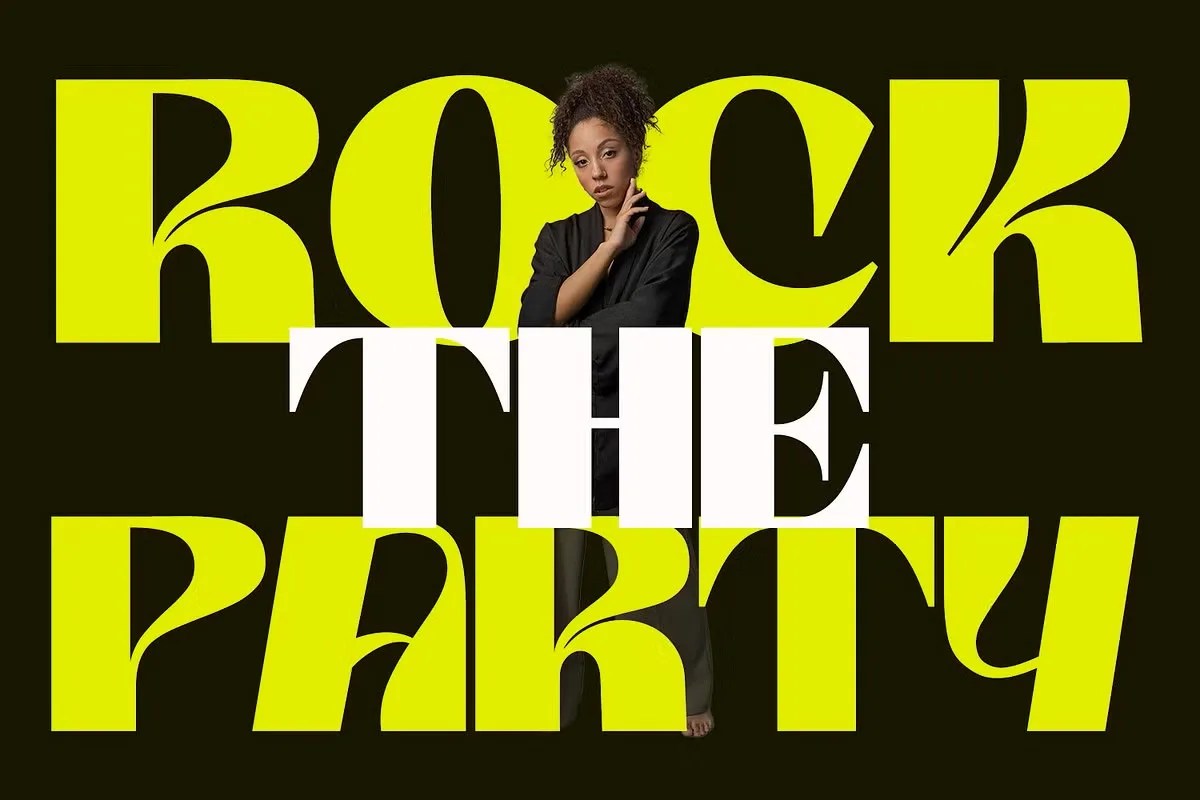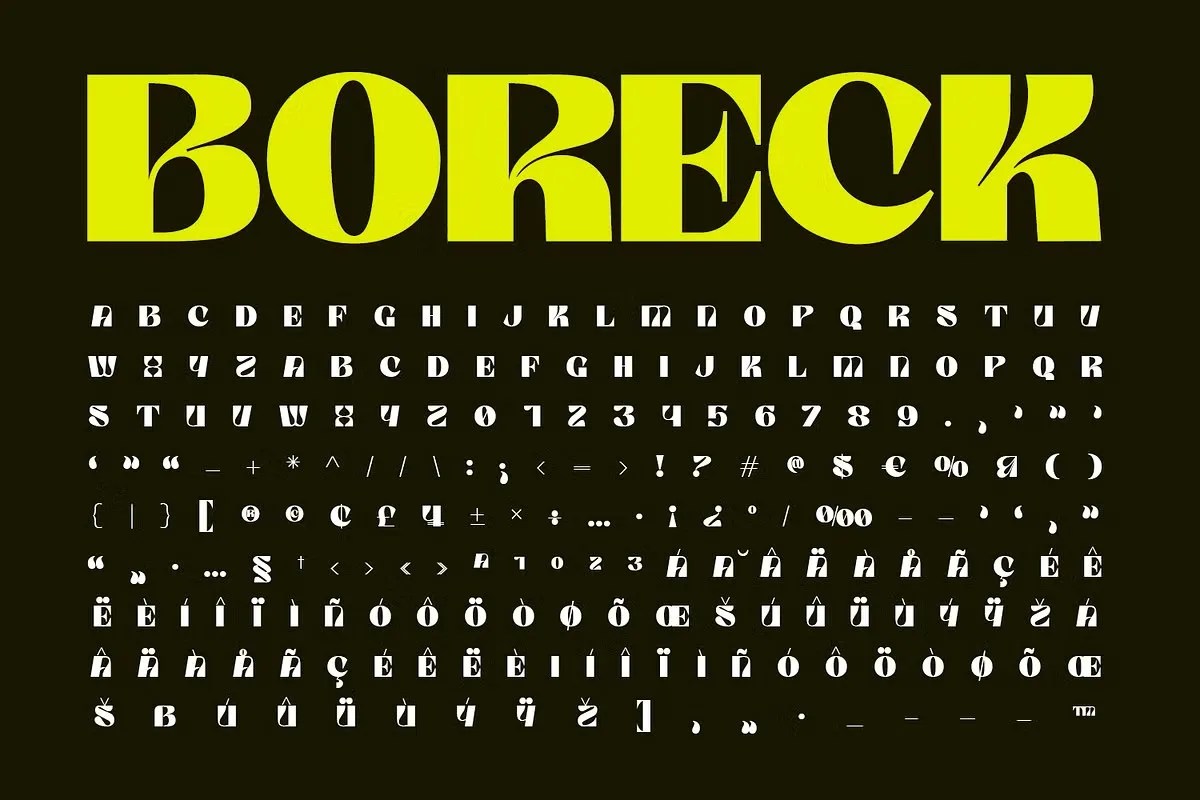
Boreck by Foxtype. This is a powerful and bold industrial font that features a strong, blocky structure and a no-nonsense aesthetic. The font communicates stability and strength above all else. Foxtype designed Boreck for maximum impact and immediate clarity. It is the perfect choice for designs that need to feel robust, modern, and completely dependable.
This font is an ideal tool for brands and messages that communicate strength. Specifically, it is a great choice for logos in the construction, automotive, or manufacturing industries. It immediately conveys a sense of durability and reliability. Furthermore, this bold industrial font is perfect for gym branding, workwear apparel, and workshop signage. Its commanding presence ensures your audience sees and feels your message. Use it for headlines that need to anchor a design with confidence and authority.
• Strong and bold industrial style
• Features blocky, geometric letterforms
• Ideal for automotive, construction, and gym branding
• Provides a powerful and dependable look